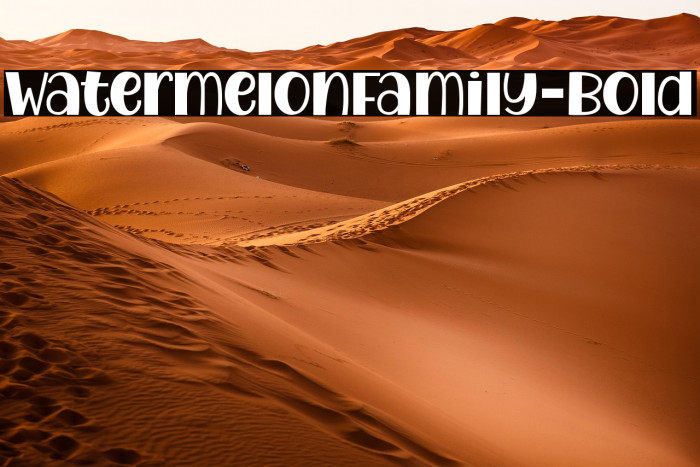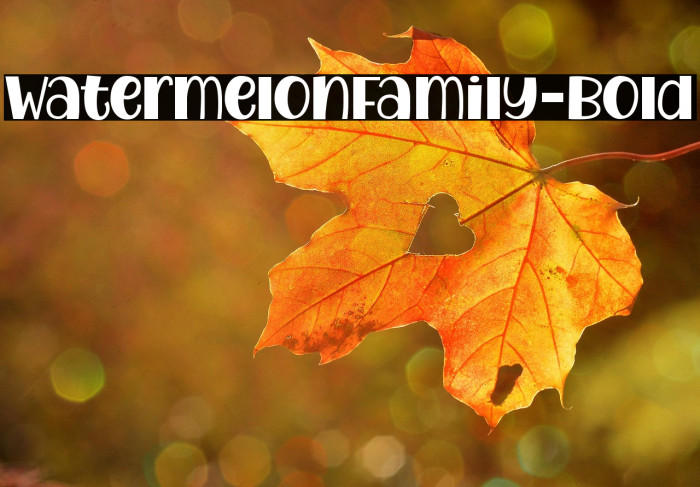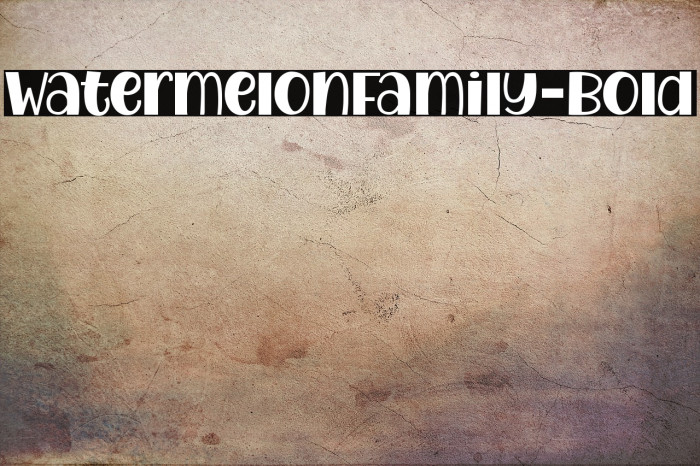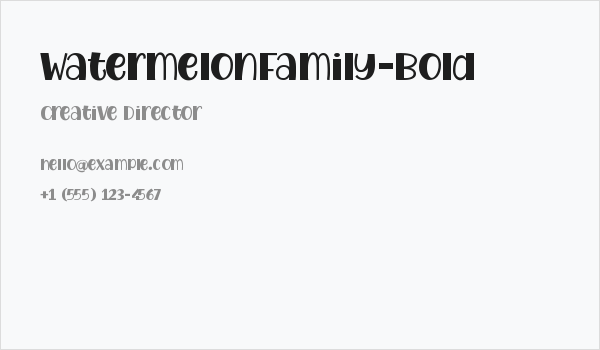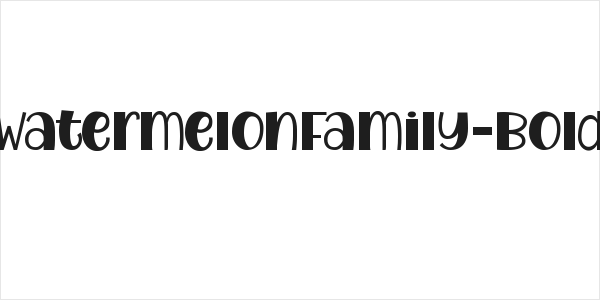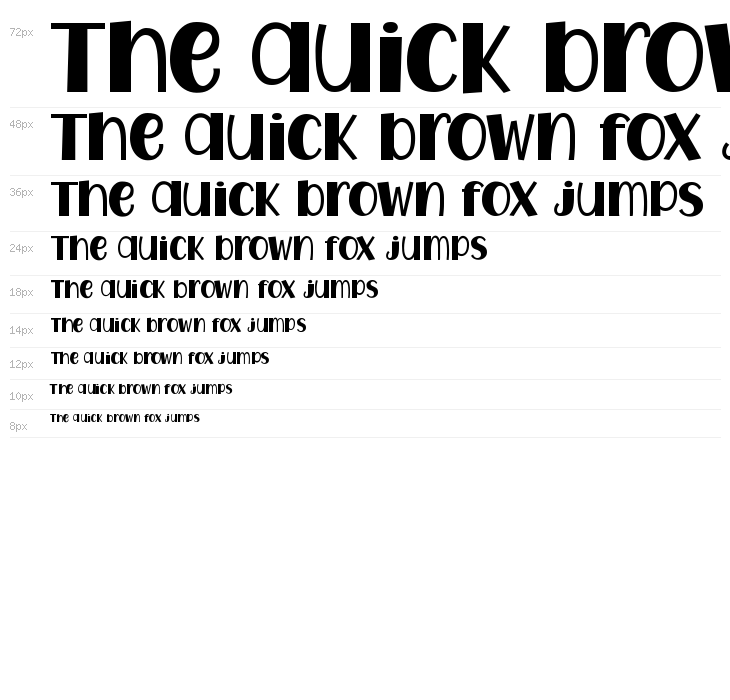
WatermelonFamily-Bold Font
WatermelonFamily-Bold Description
This font features a playful and bold design with a unique blend of curves and sharp edges. The uppercase letters are characterized by their wide, rounded forms, while the lowercase letters maintain a more compact and whimsical appearance. The numerals are bold and consistent with the overall style, ensuring readability. Special characters are creatively designed, adding to the font's decorative appeal. The font's overall aesthetic is lively and modern, making it suitable for projects that require a touch of fun and creativity.
| Proposed Projects | Ideal for children's books, playful branding, posters, and creative advertising campaigns. |